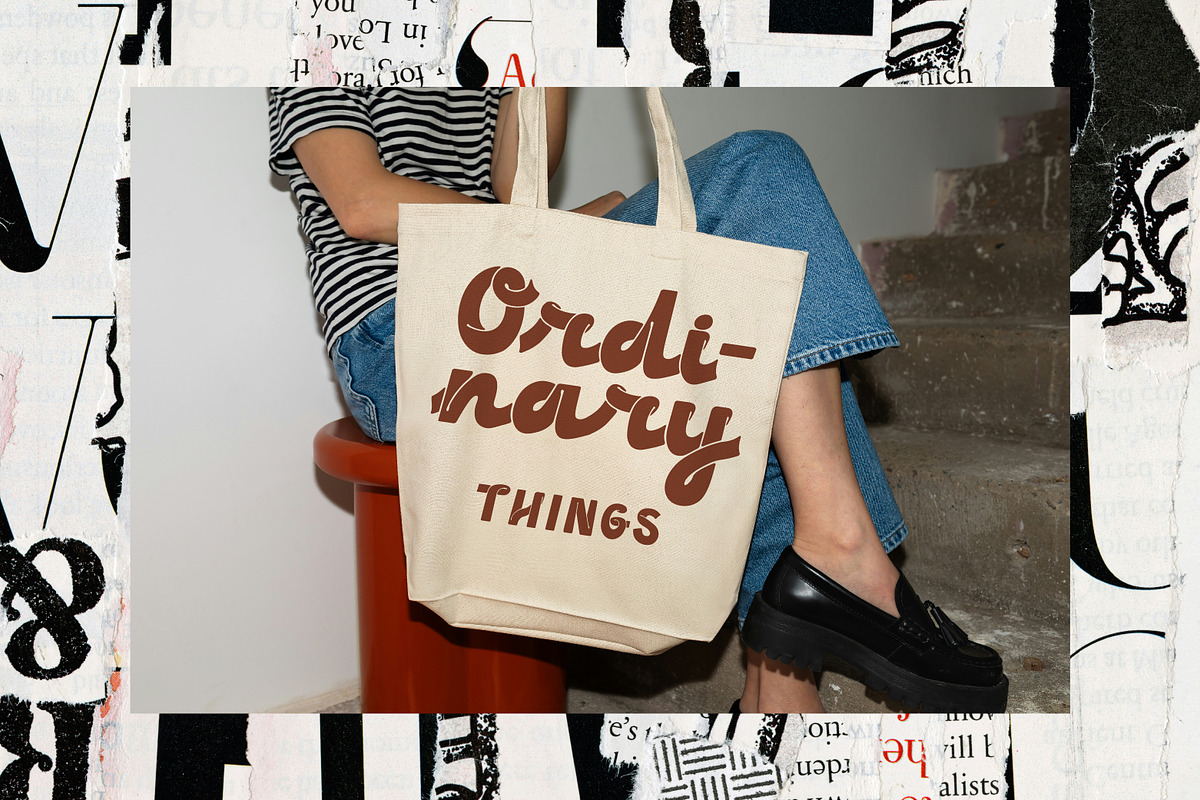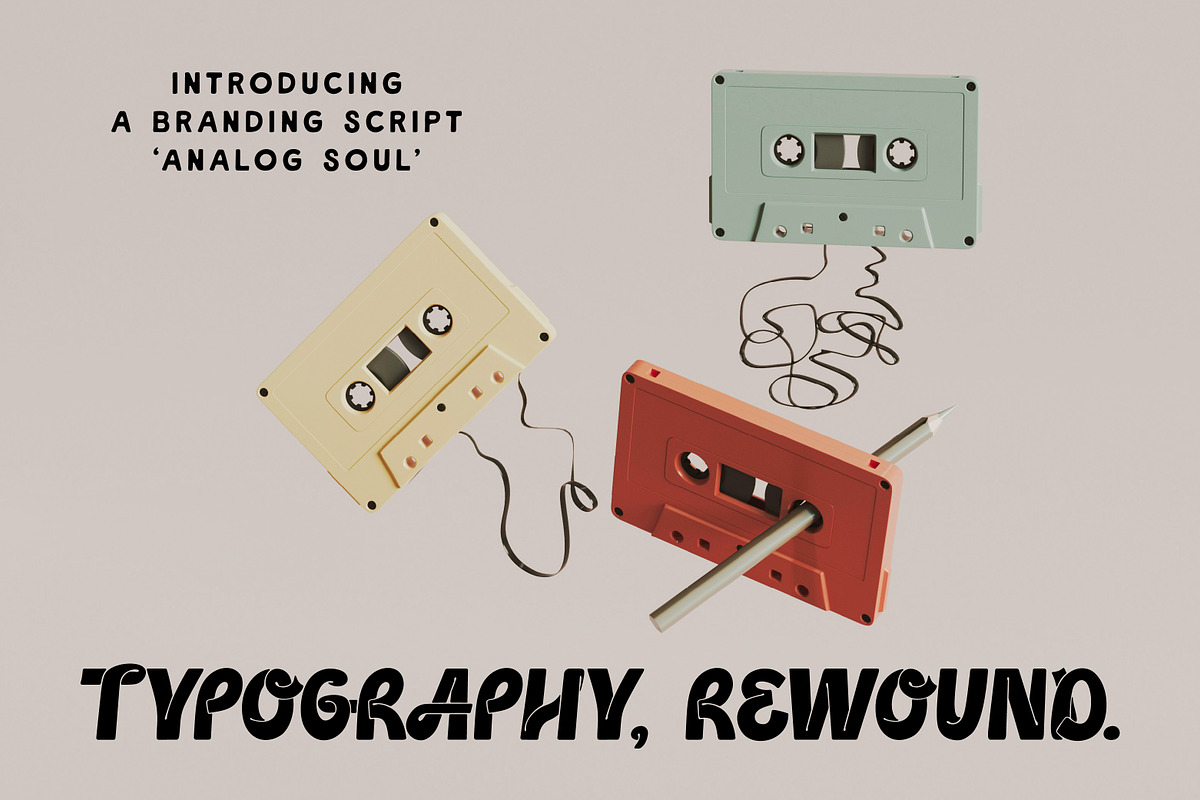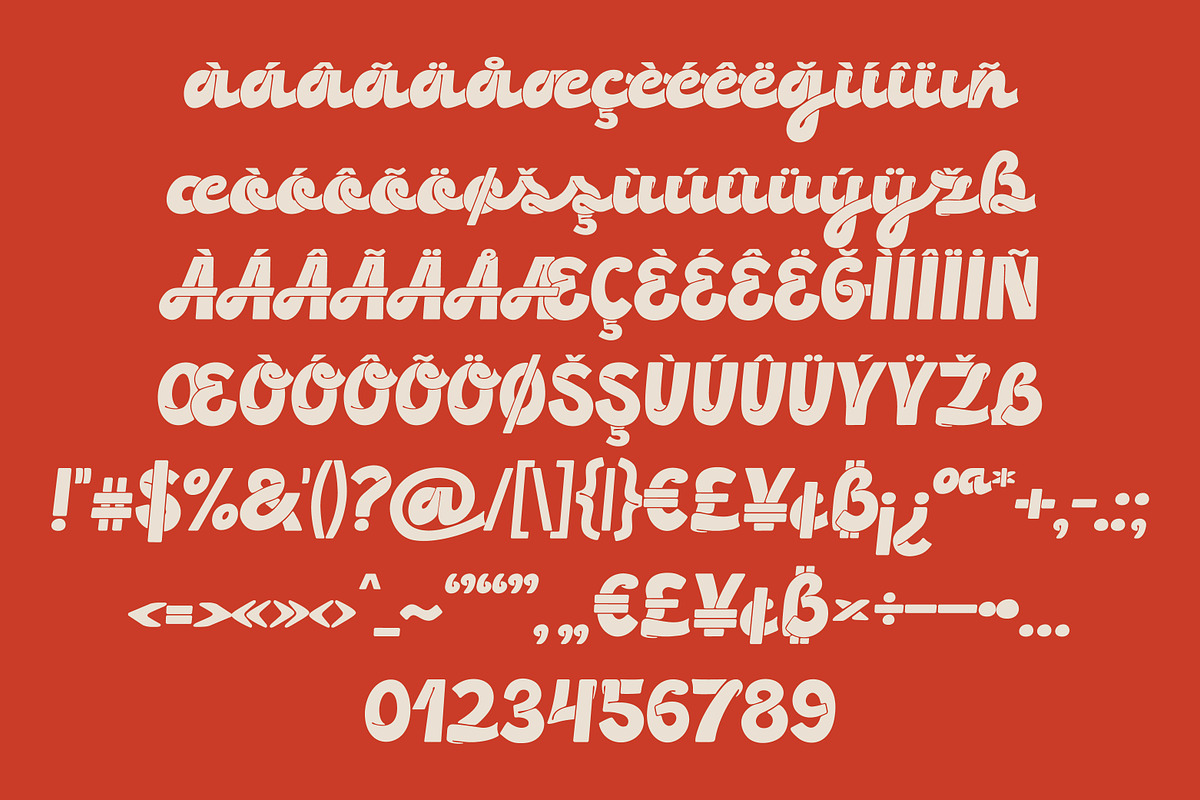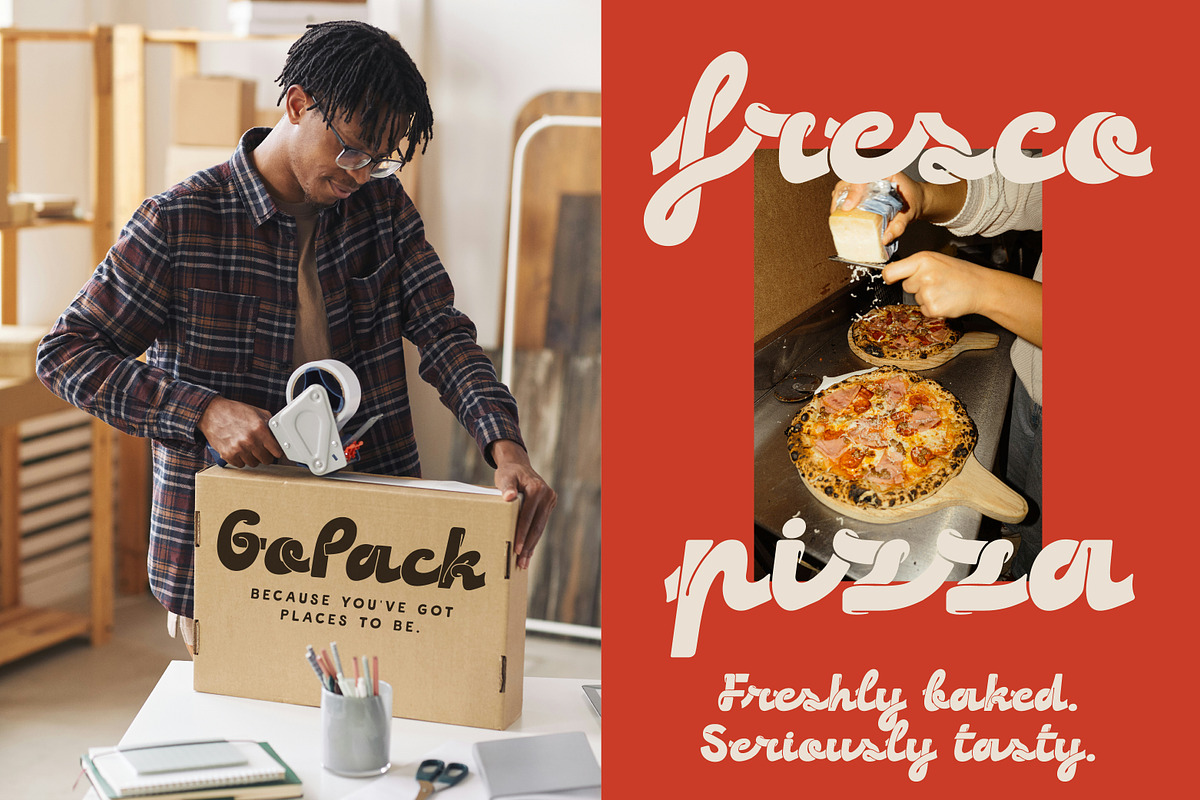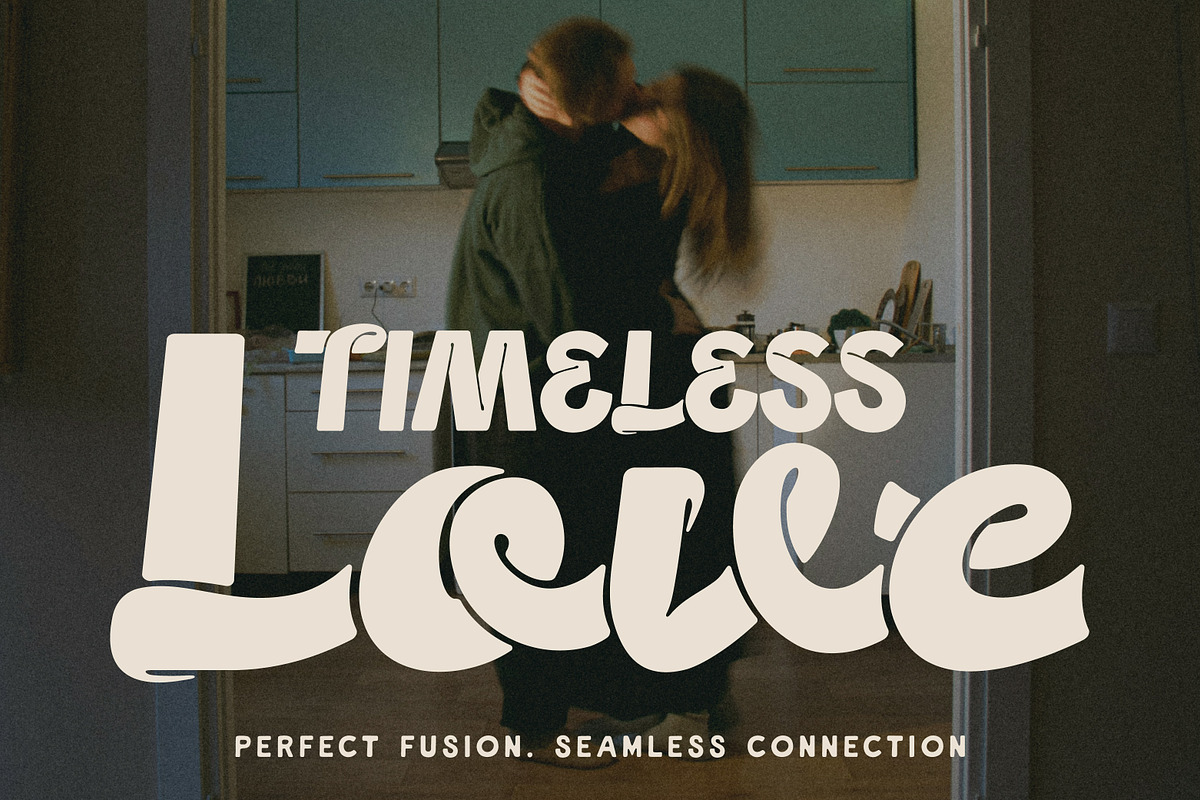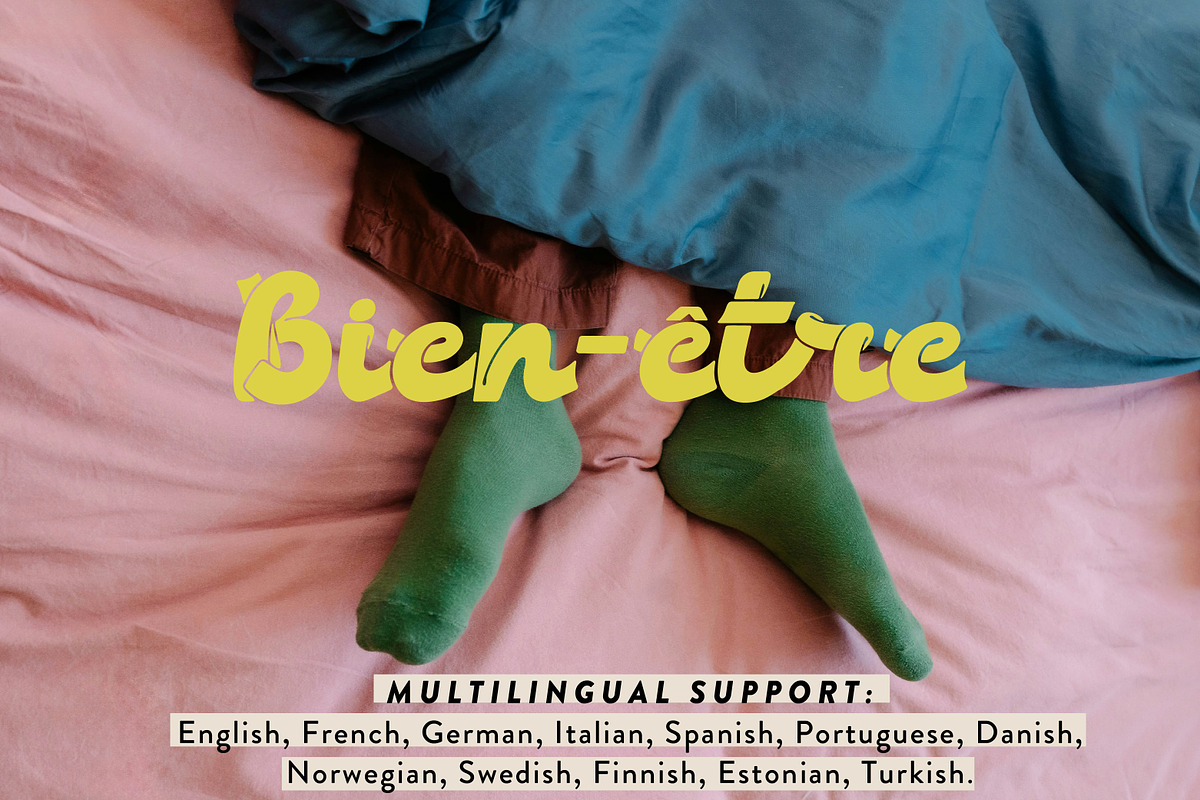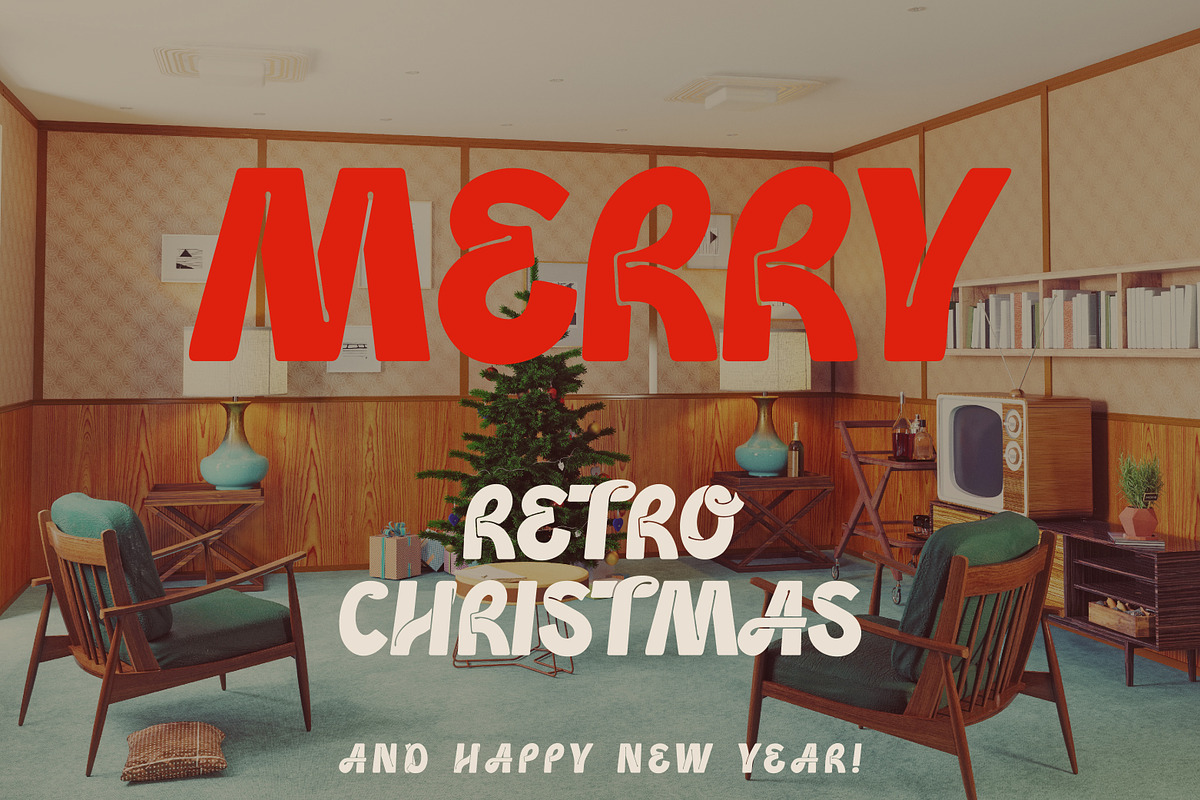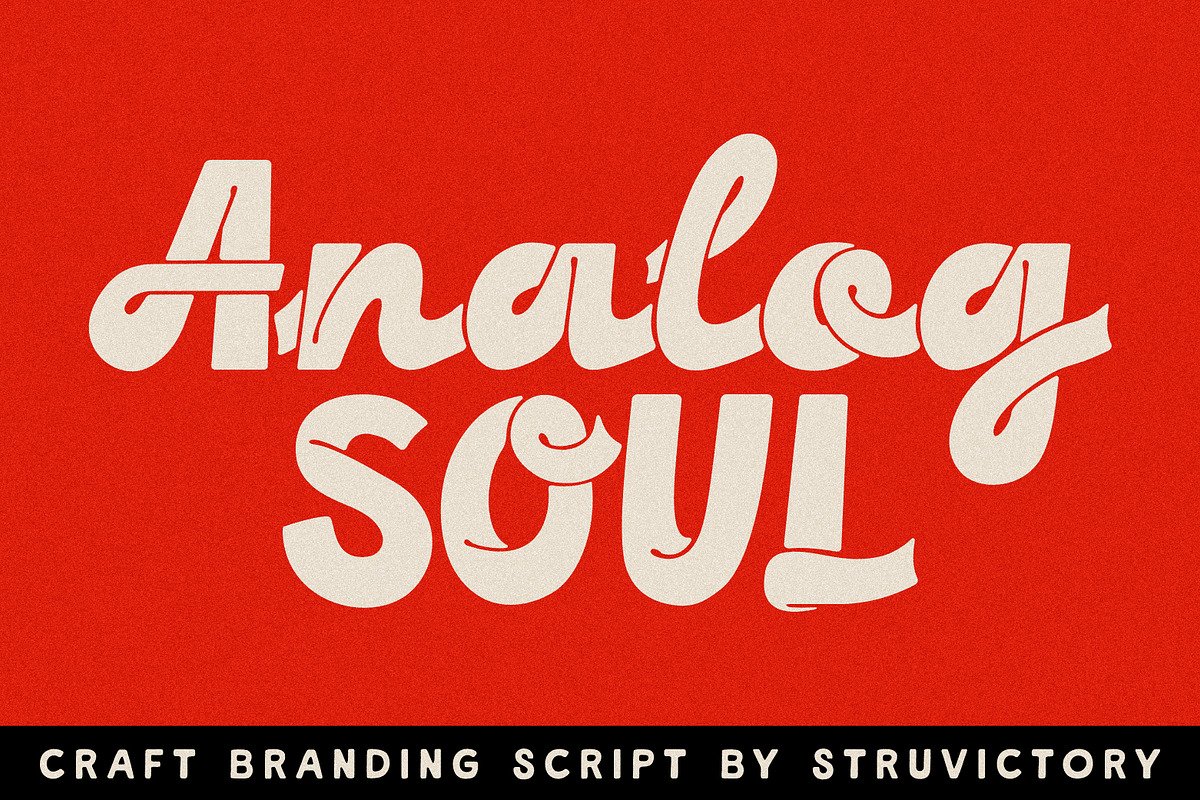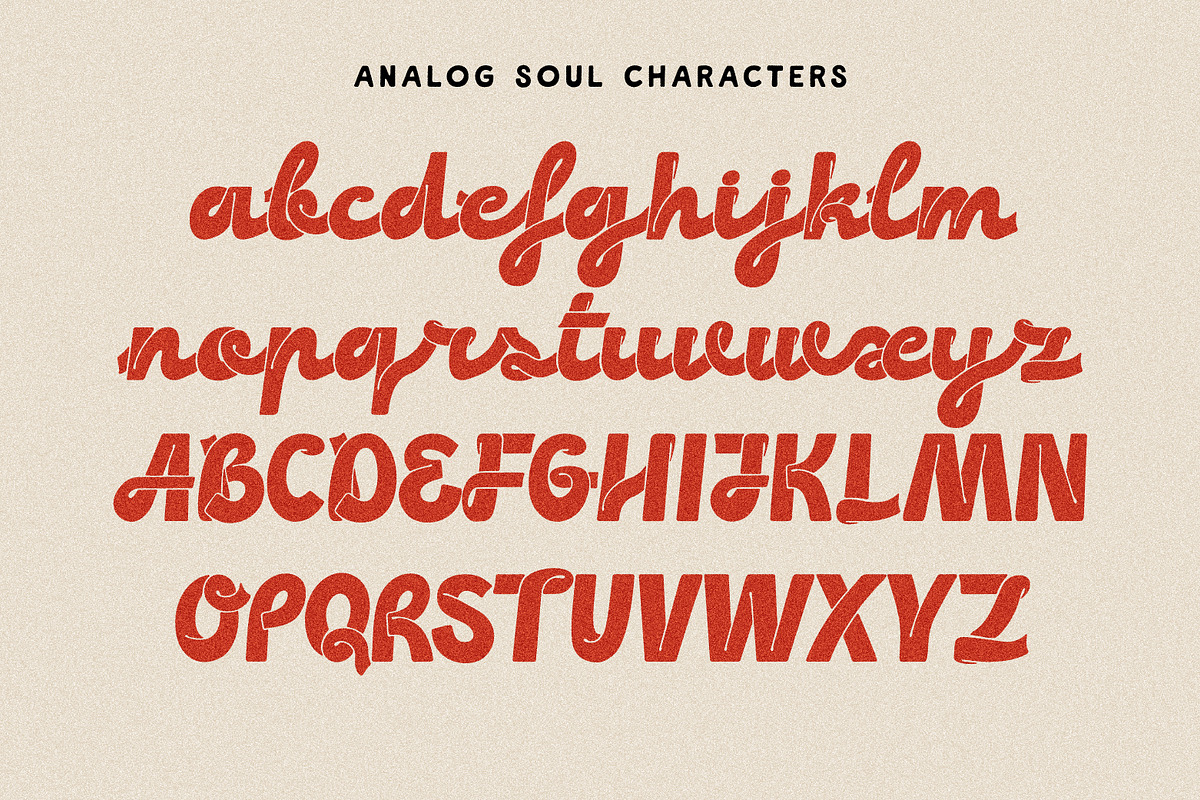
Analog Soul Branding Bold Script
Analog Soul is a bold and fluid script font where characters blend seamlessly, like a melody recorded on a single, unbroken tape. Its elegant flow and clever use of negative space evoke a sense of nostalgic warmth, reminiscent of hand-labeled cassettes and mixtapes filled with sentiment. This font is the perfect choice for branding, packaging, and logos that seek to merge timeless nostalgia with modern, sophisticated elegance.